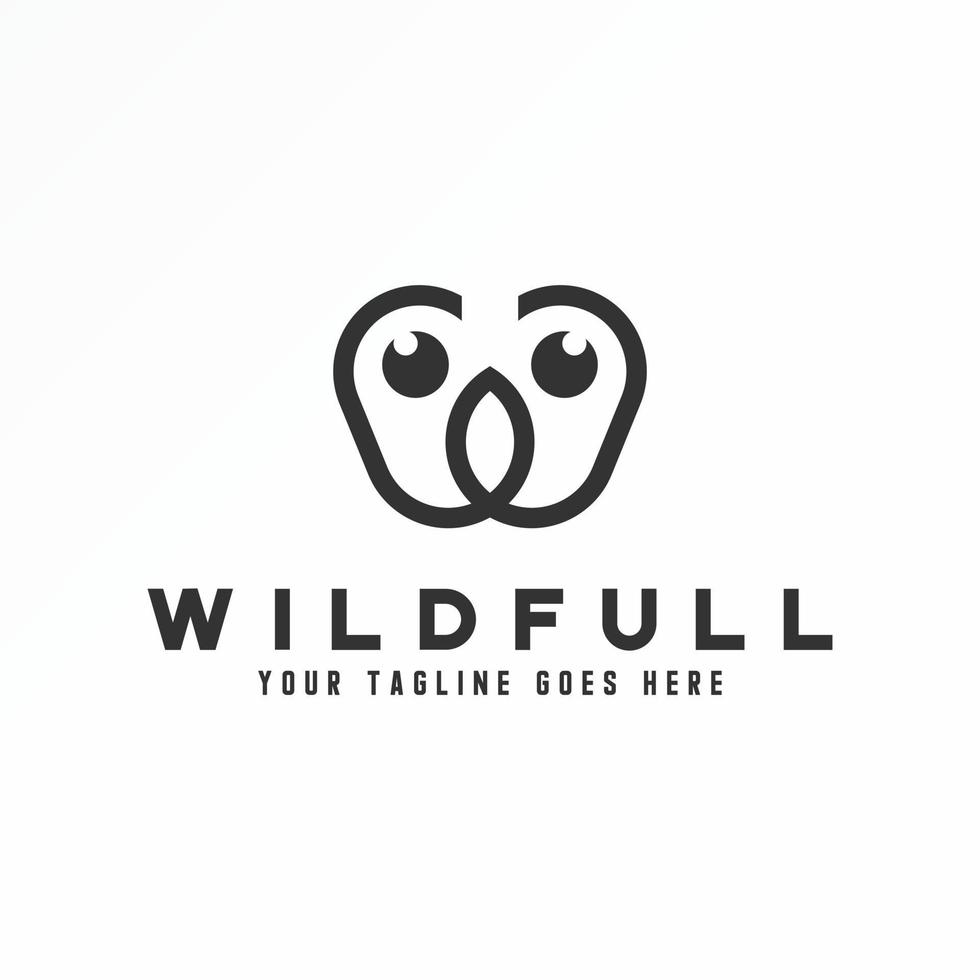
Letter or word W font like animal face image graphic icon logo design abstract concept vector stock. Can be used as a symbol related to initial or funny Pro Vector